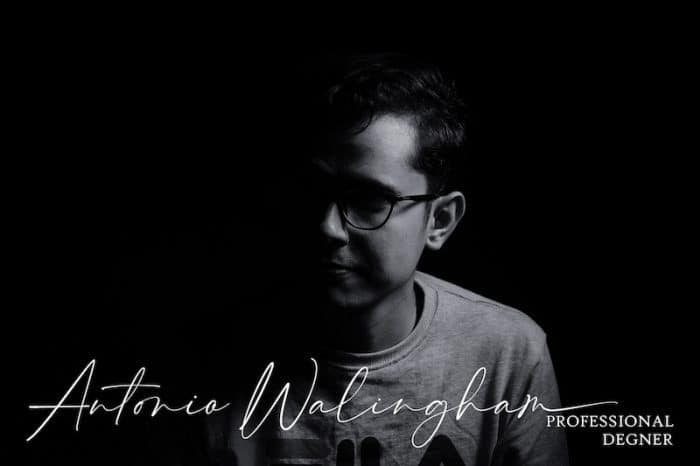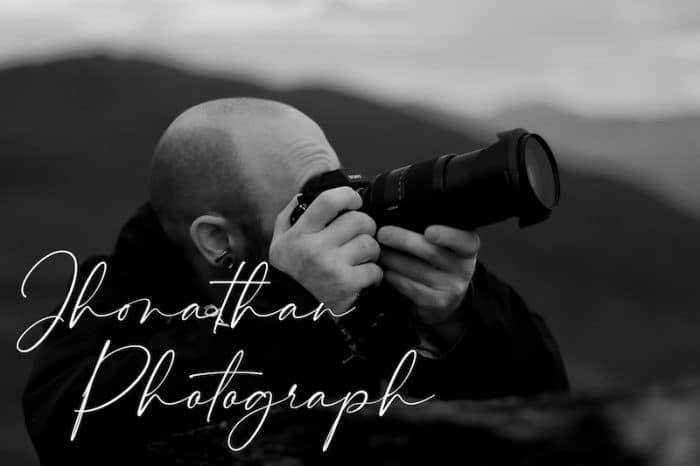
Hammington Script Font
Hammington Script Font is sweet and playful, but also Crafty. Every single letters have been carefully crafted to make your text looks beautiful. This font is perfectly suited to signature, stationery, logo, typography quotes, magazine or book cover, website header, clothing, branding, packaging design and more.